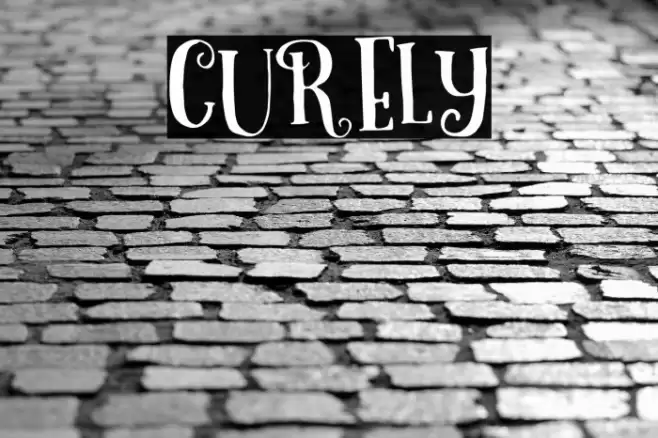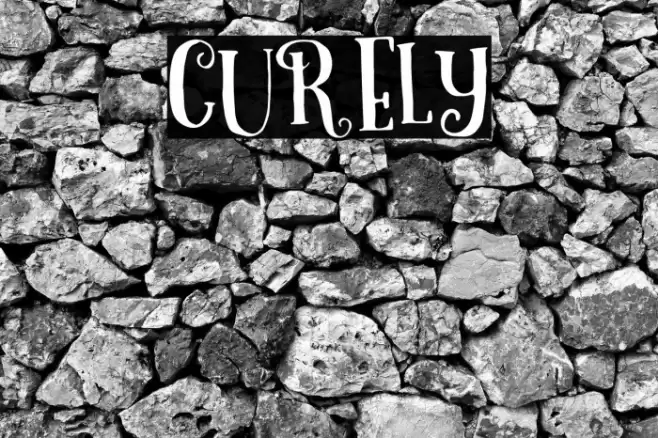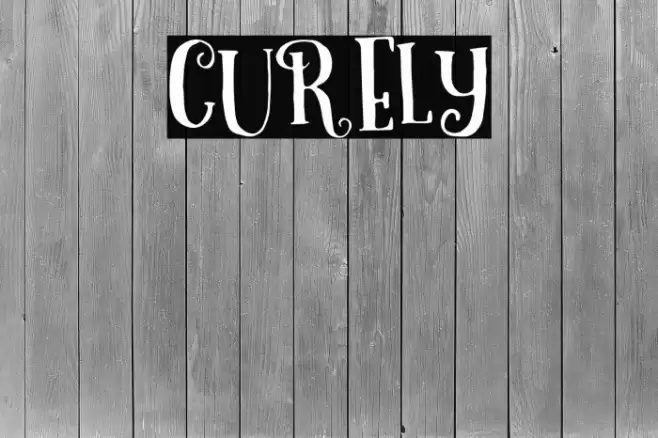
Curely Font
Curely Description
This font features a whimsical and playful design with curly embellishments on many of the characters. The uppercase letters are bold and expressive, with unique flourishes that add a decorative touch. The lowercase letters maintain the same playful style, with consistent curls and loops that give the font a cohesive look. The numbers and special characters are designed to match the overall style, making them suitable for creative and artistic projects. The font's distinct personality makes it ideal for use in designs that require a fun and lively aesthetic.
A whimsical, curly font with playful embellishments and a decorative style from Curly fonts.
- Proposed Projects: Ideal for greeting cards, children's book covers, playful branding, and creative invitations.
- Use Case: Headlines, Logos, Invitations